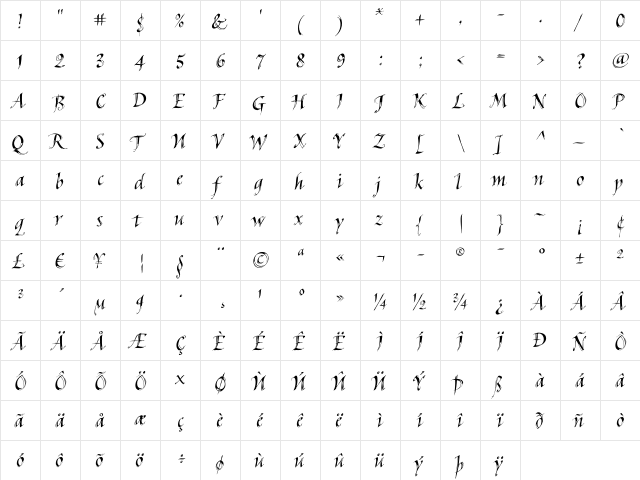
HederaITC Medium Font Preview
HederaITC Medium
HederaITC Medium Font Details
Design Context for HederaITC Typeface
HederaITC is a composed and adaptable typeface that performs quietly and consistently across a wide range of design contexts.